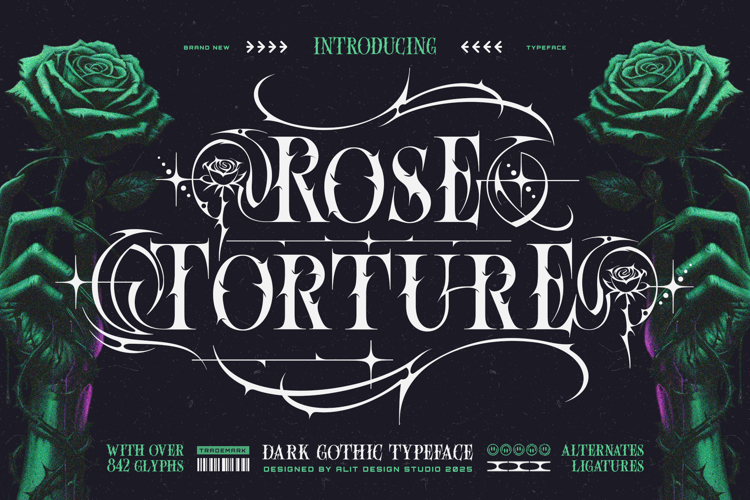
Rose torture Font
Unleash a torrent of dark, mystical elegance with Rose Torture, a stunning new Dark Gothic Typeface from Alit Design Studio. This font is born from the shadows, masterfully blending the rigid structure of classic gothic lettering with the organic, dangerous beauty of thorns, barbs, and cursed roses.
Rose Torture is not just a font; it's a complete design arsenal. The basic character set provides a strong, all-caps (unicase) foundation—sharp, legible, and impactful. But the true power is unleashed through its vast library of alternates. With over 842 glyphs, this typeface allows you to transform your text into a breathtaking work of art.